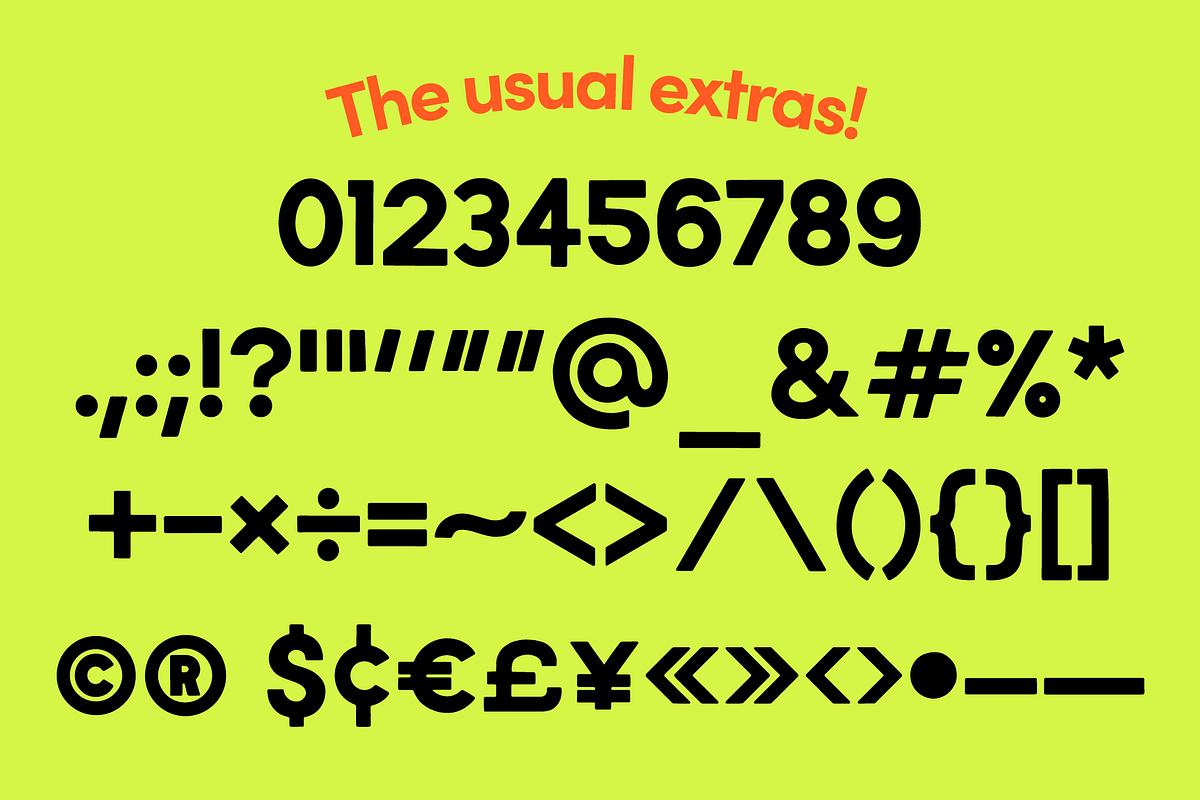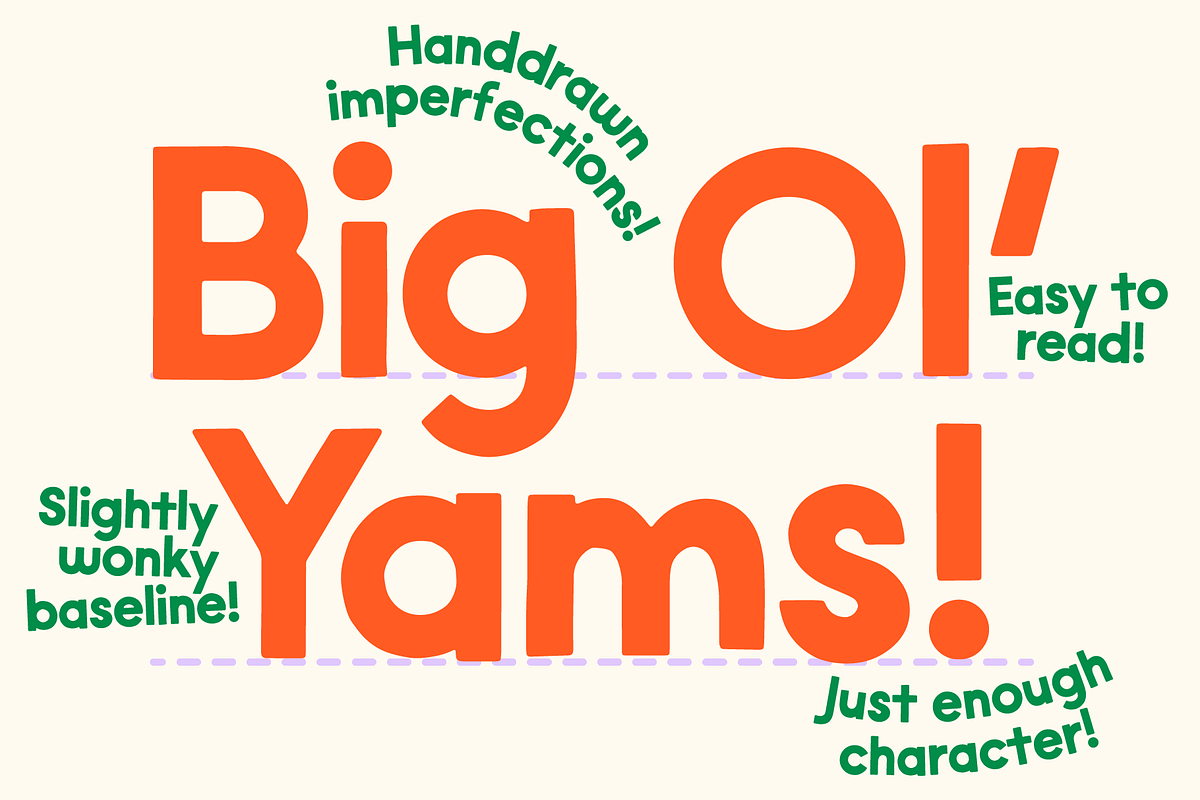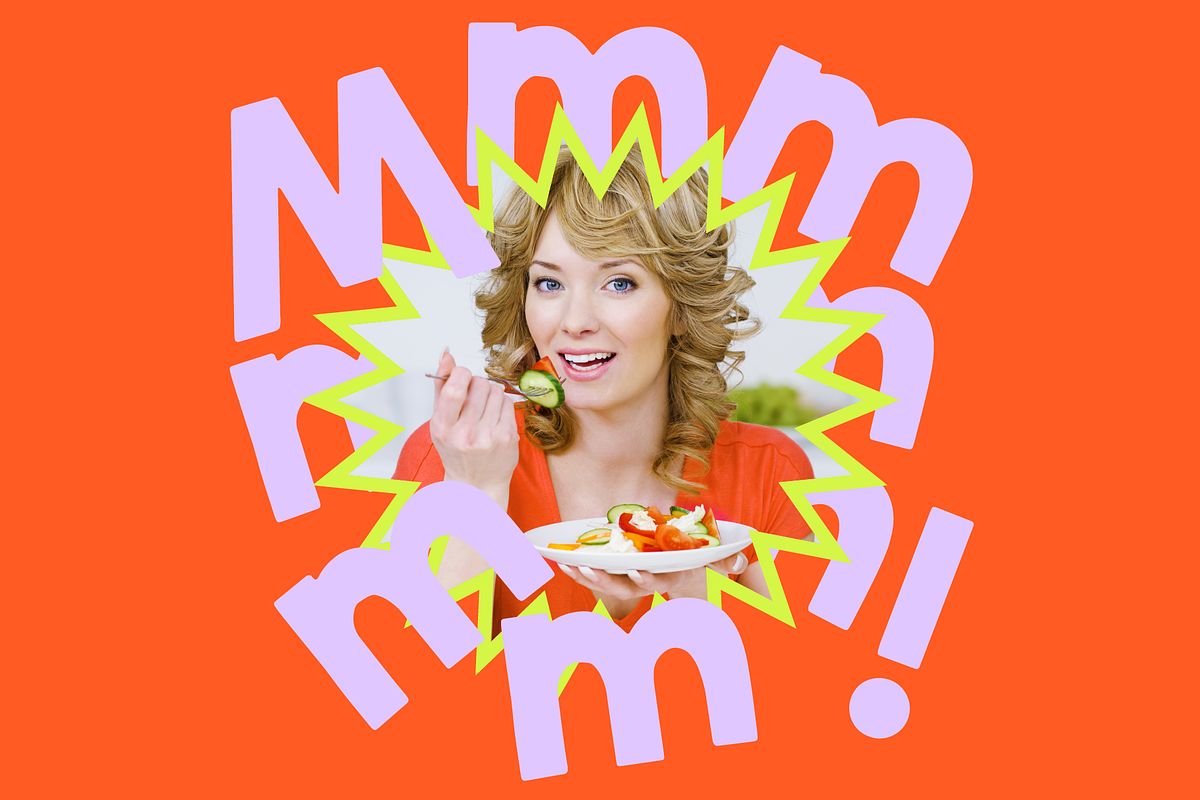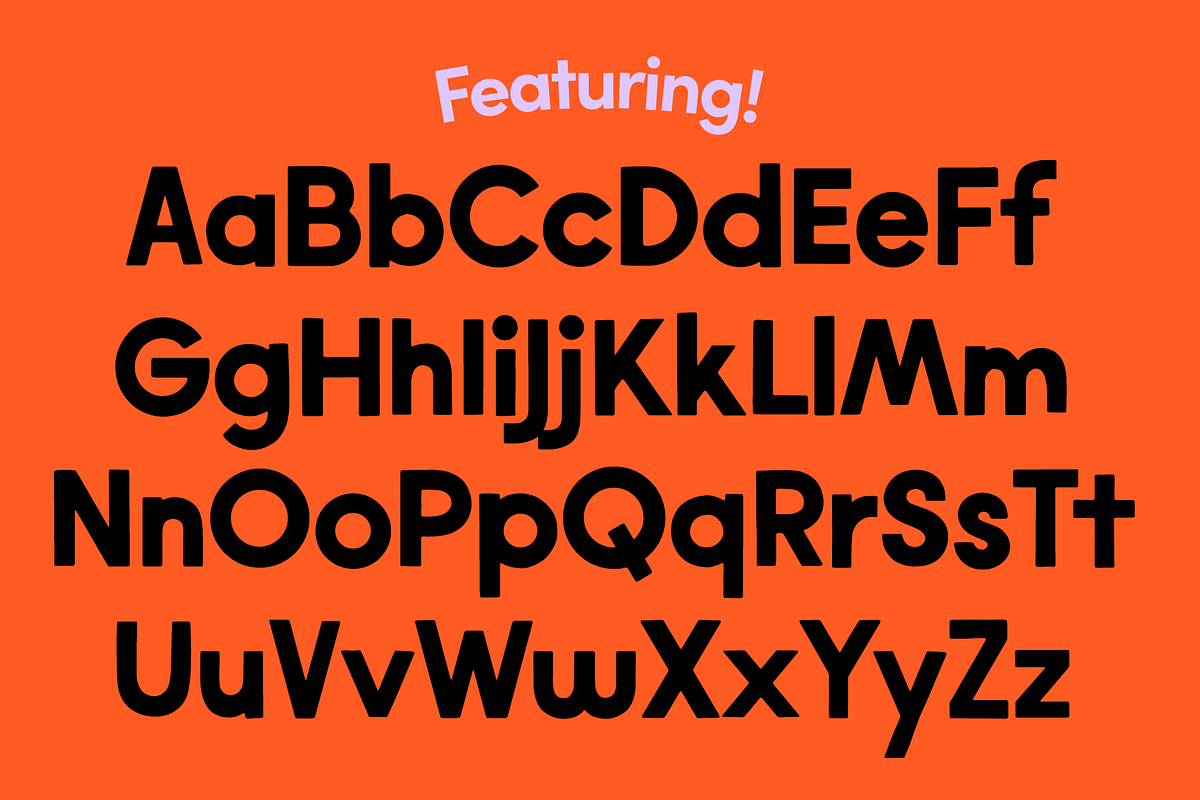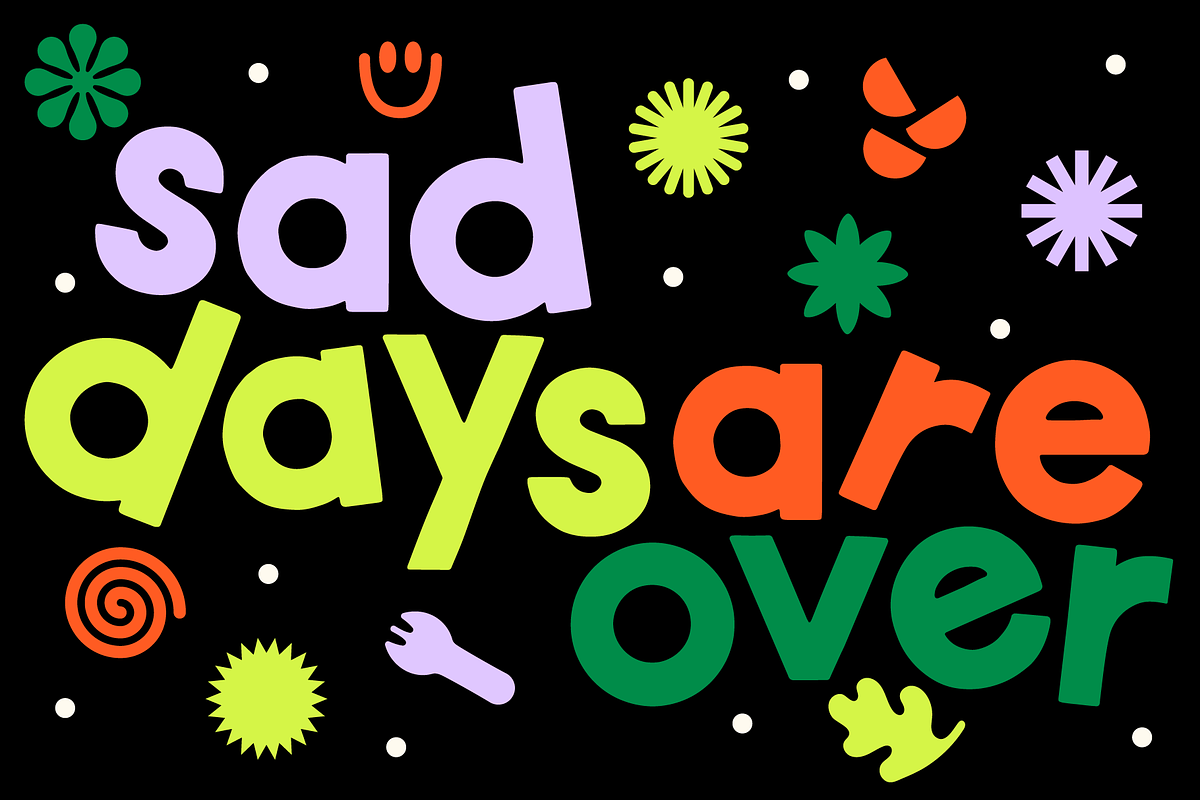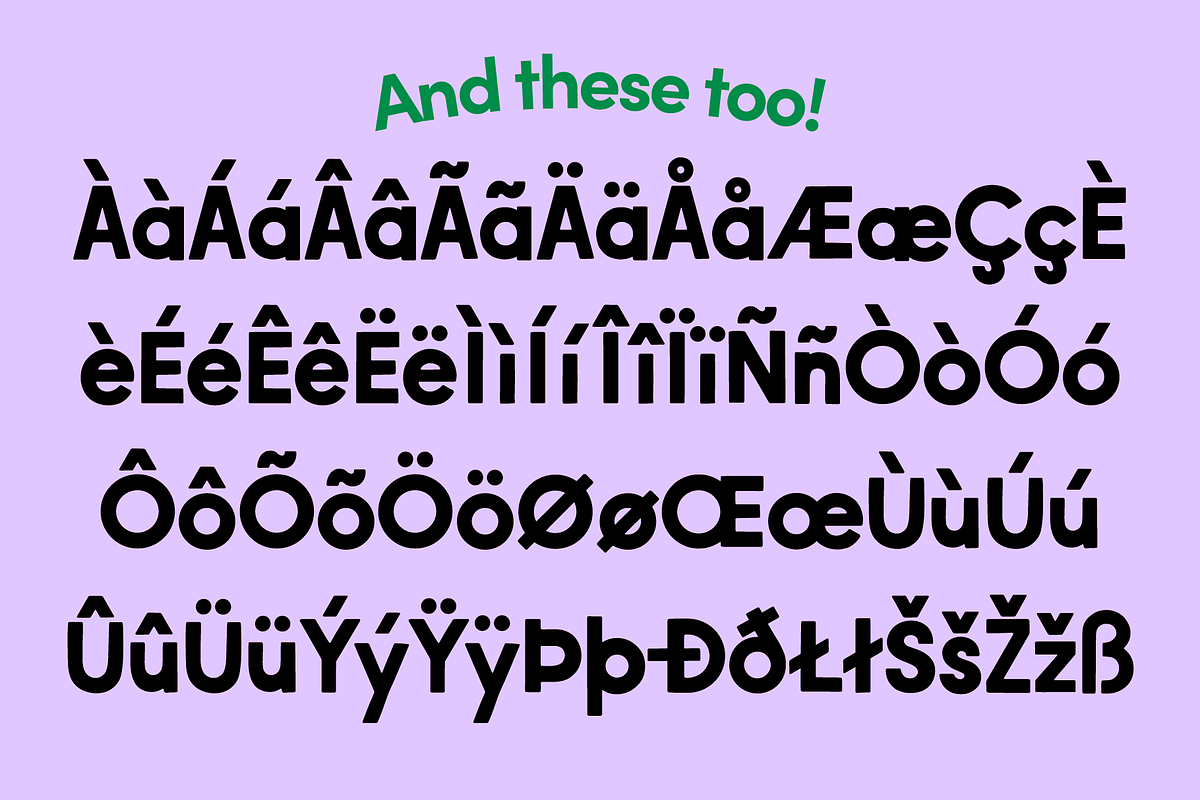
Salad Days! Geometric Sans Serif
Salad Days is a playful, handmade geometric sans serif font that doesn't take itself too seriously! Perfect for branding projects, headlines, body copy, or just adding a bit o' joy to any design. Salad Days has little imperfections in each letter and a slightly wonky baseline, but not too much! Salad Days is still clean and easy to read making this a great font for clean design with a touch of personality! It's versatility makes it great for bold, authoritative, Swiss-inspired design all the way to playful graphics that celebrate joy.
- Letters!
- Numbers!
- Symbols!
- Punctuation!
- Advanced Characters!